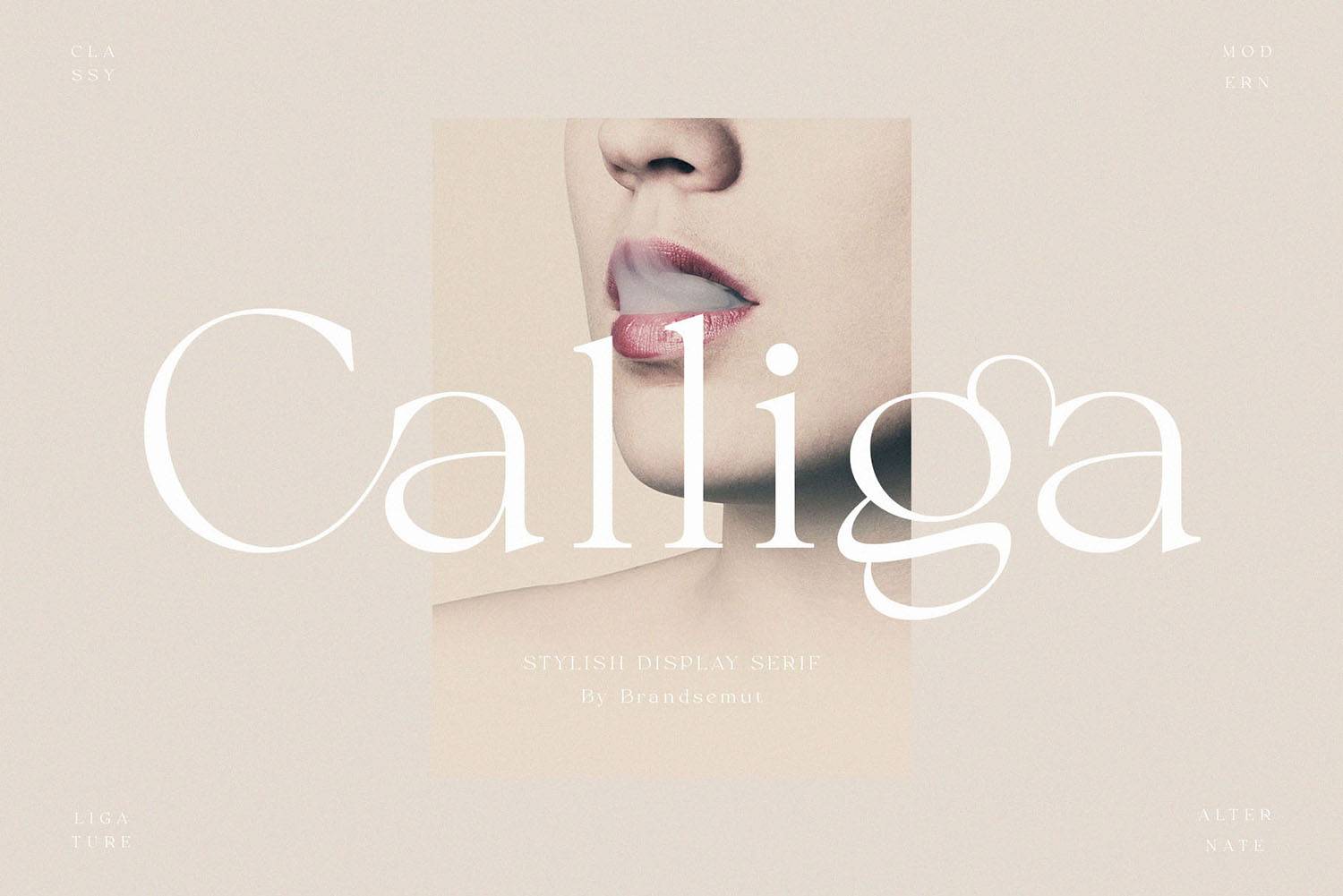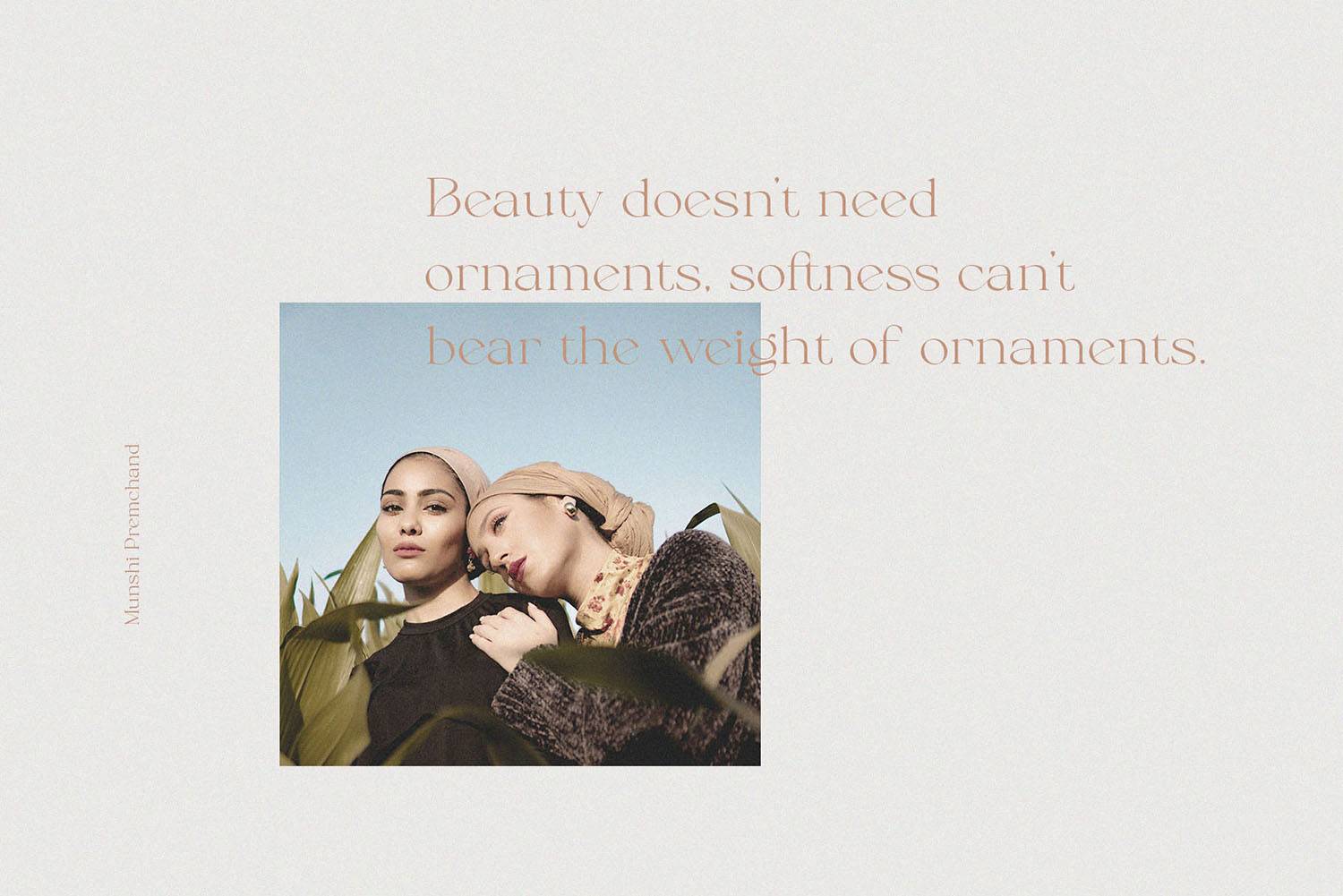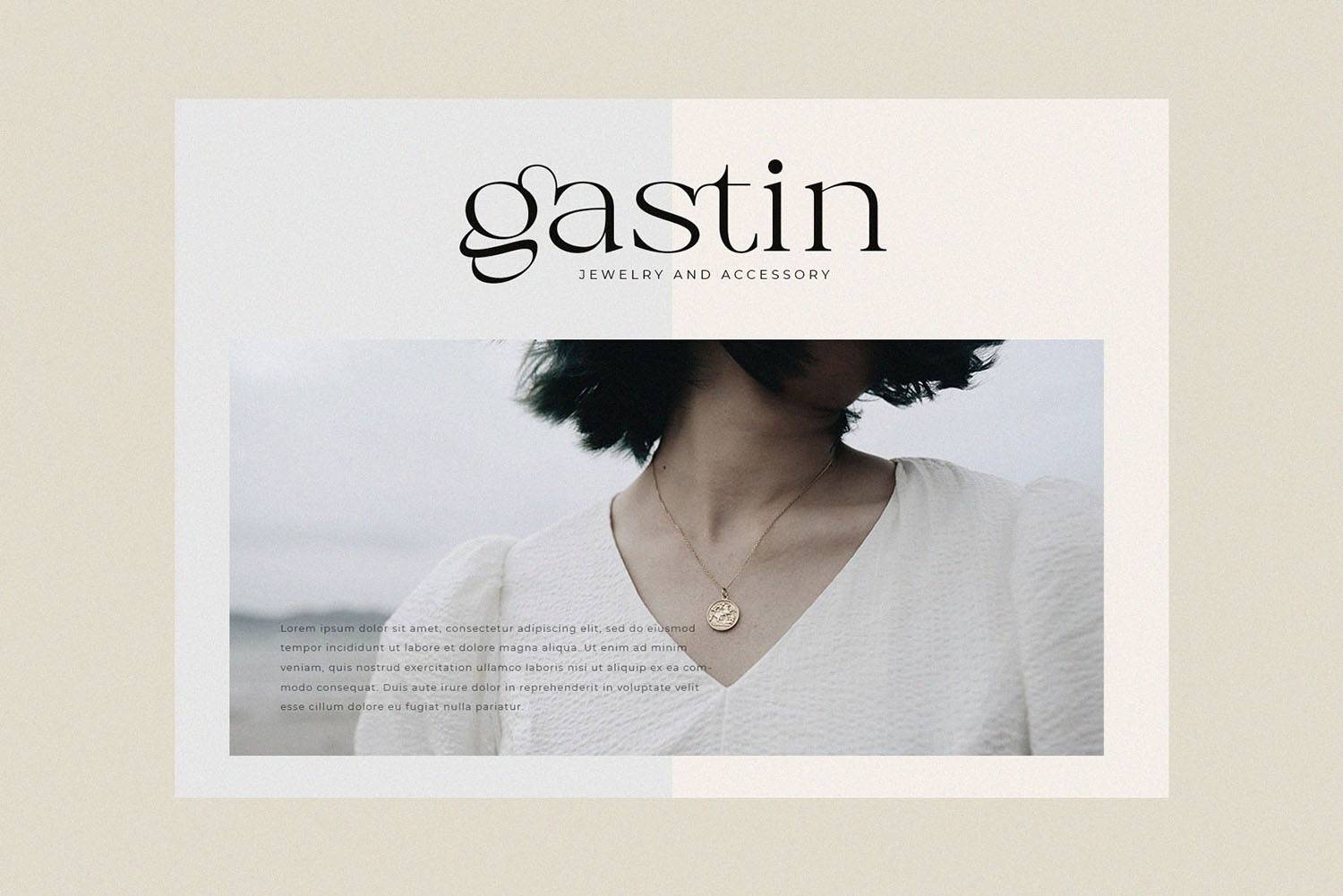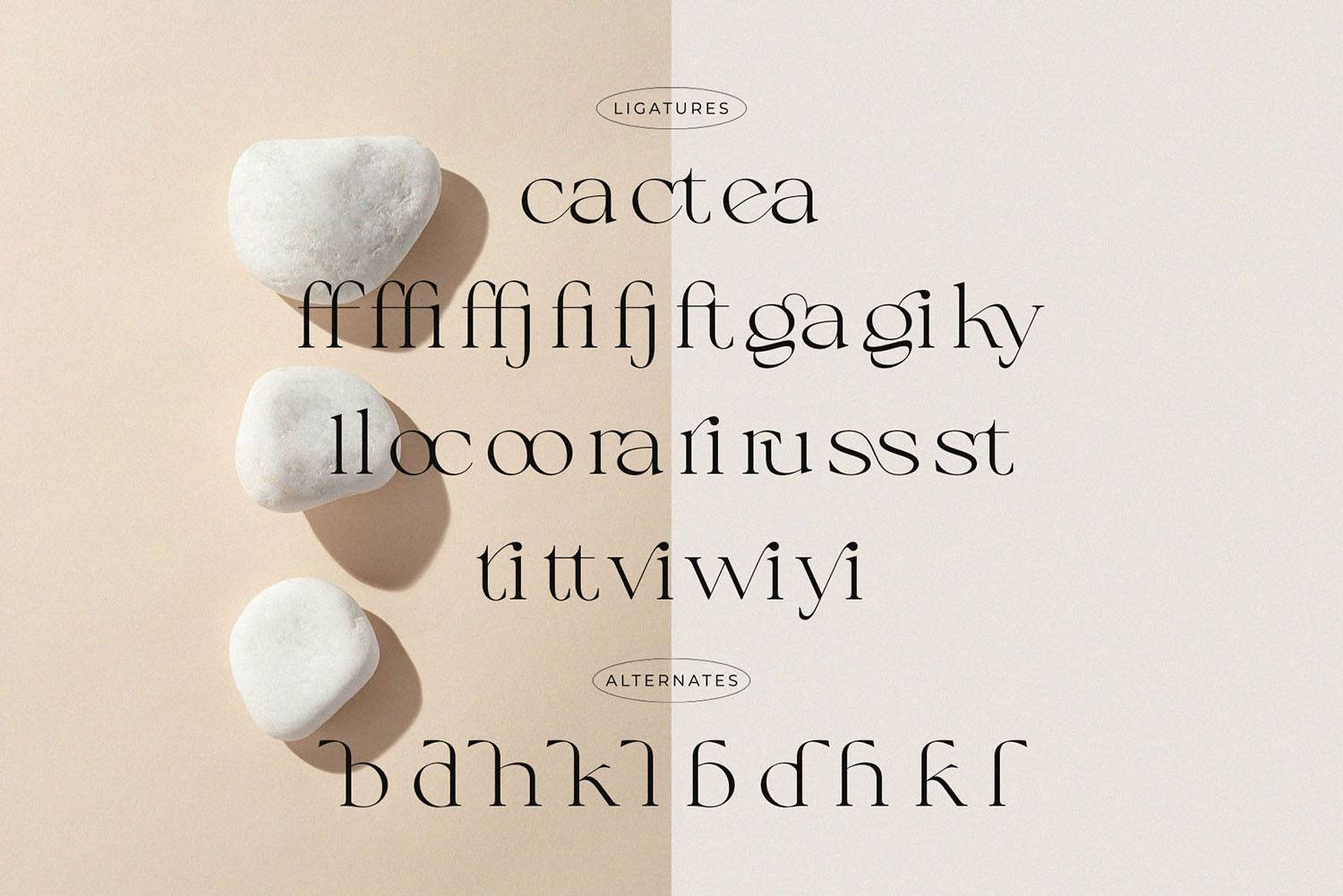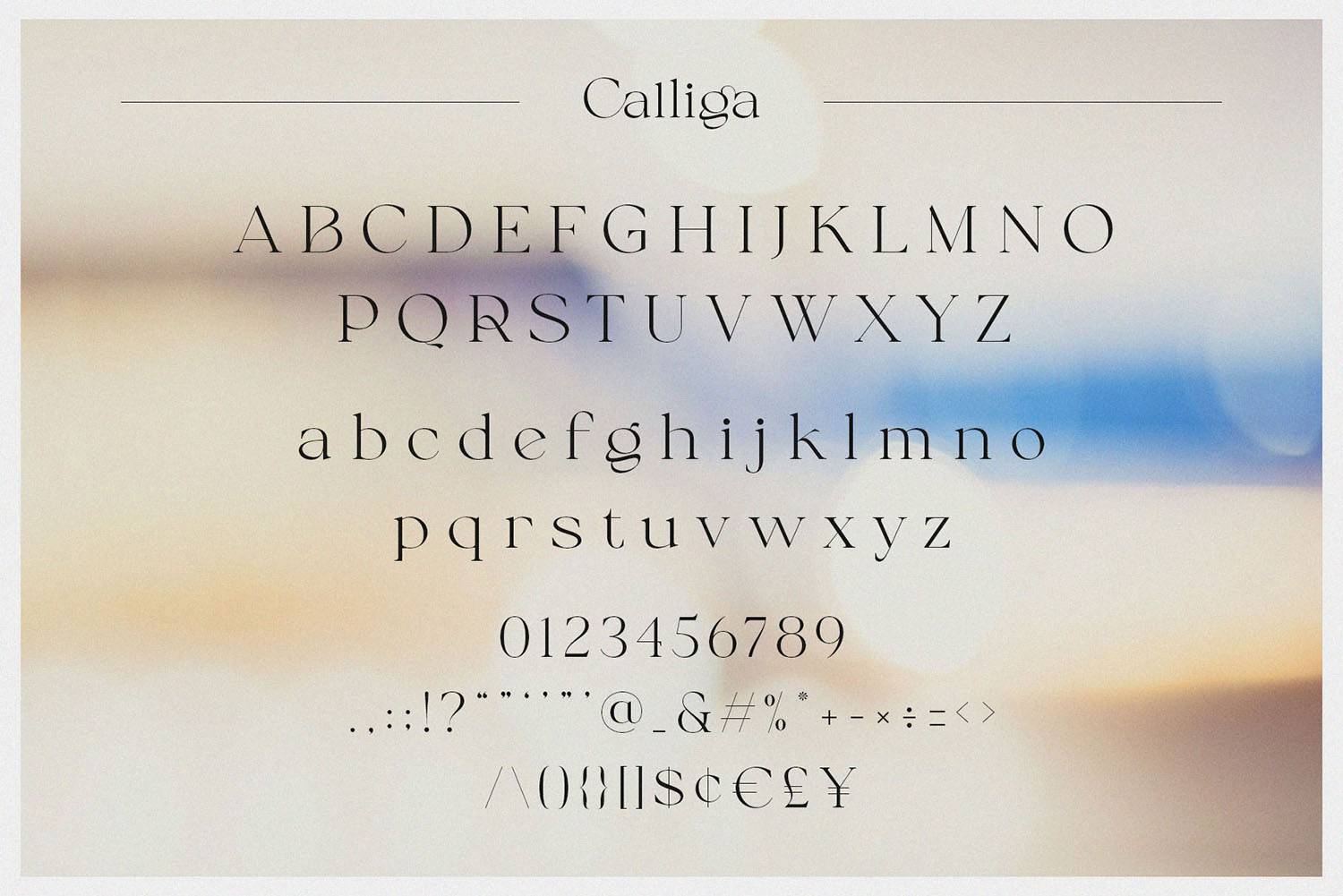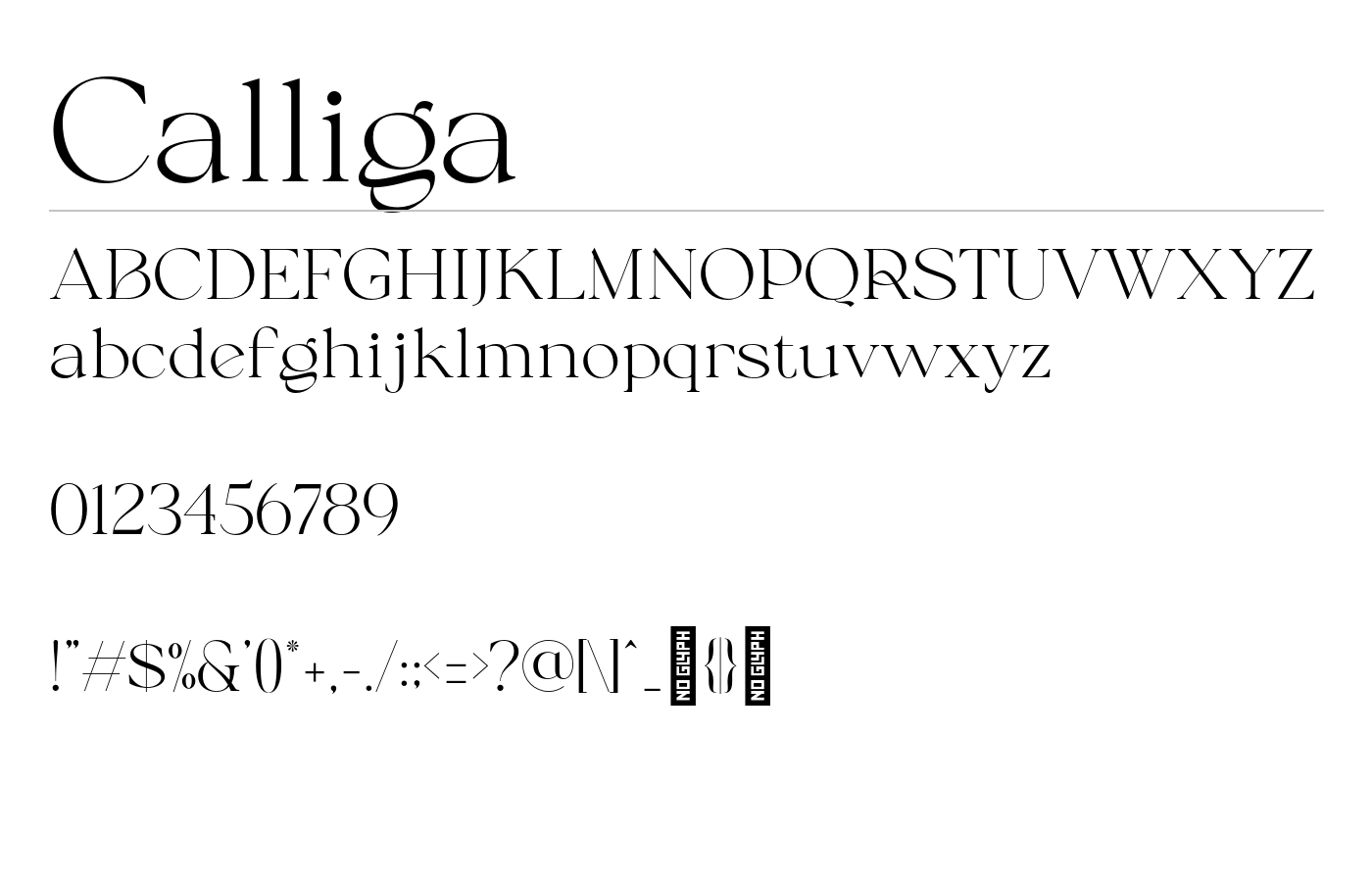
Calliga is an elegant serif font with a refined, modern touch, characterized by its high contrast between thin and thick strokes and delicate, sharp serifs. Its slender letterforms and stylish details give it a sophisticated and graceful appearance, making it ideal for luxury branding, editorial headlines, and upscale packaging where a sense of class and finesse is desired. This font works best in large sizes for striking titles or logos, conveying a polished, timeless personality with a contemporary flair.
Calliga Font
About Calliga Font
| Font family | Calliga Font |
| Designer | Brandsemut |